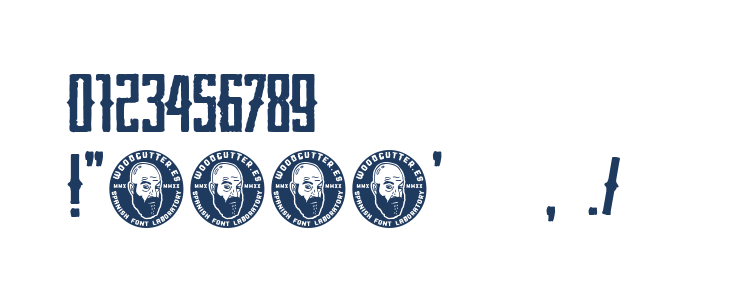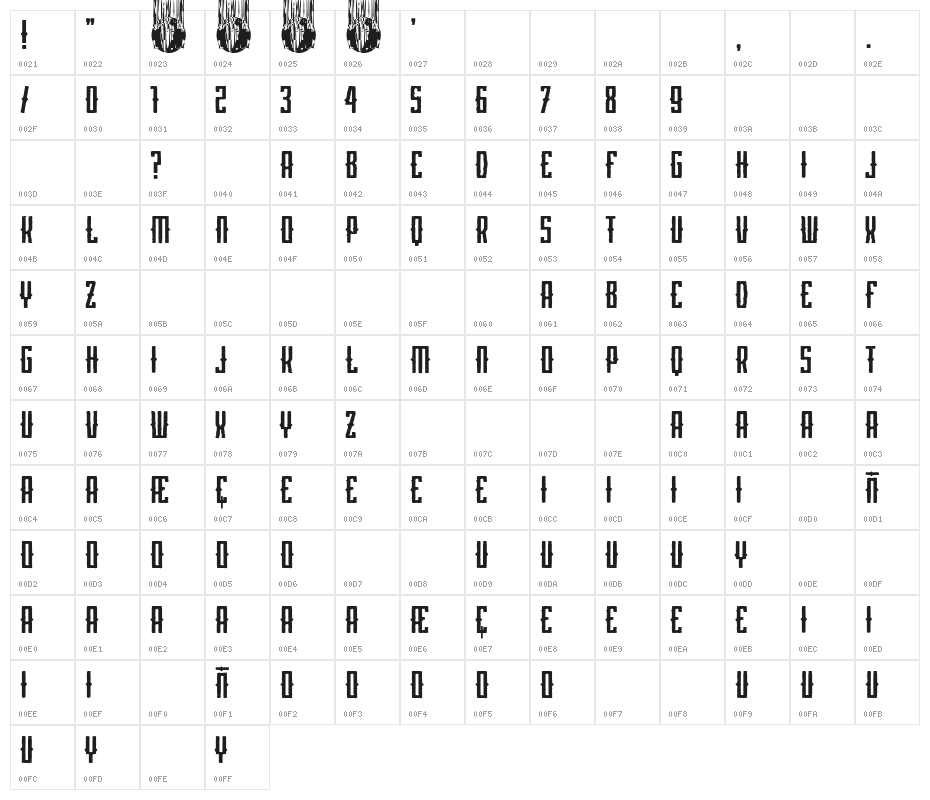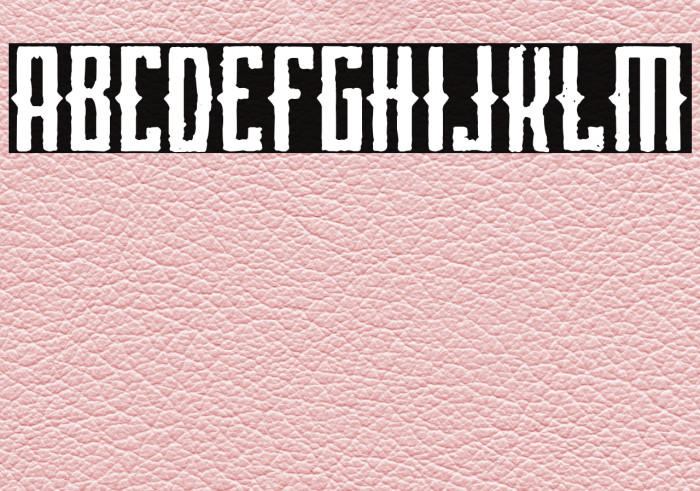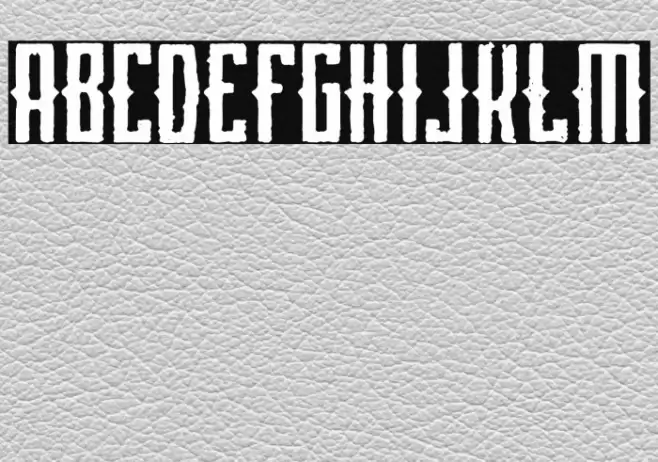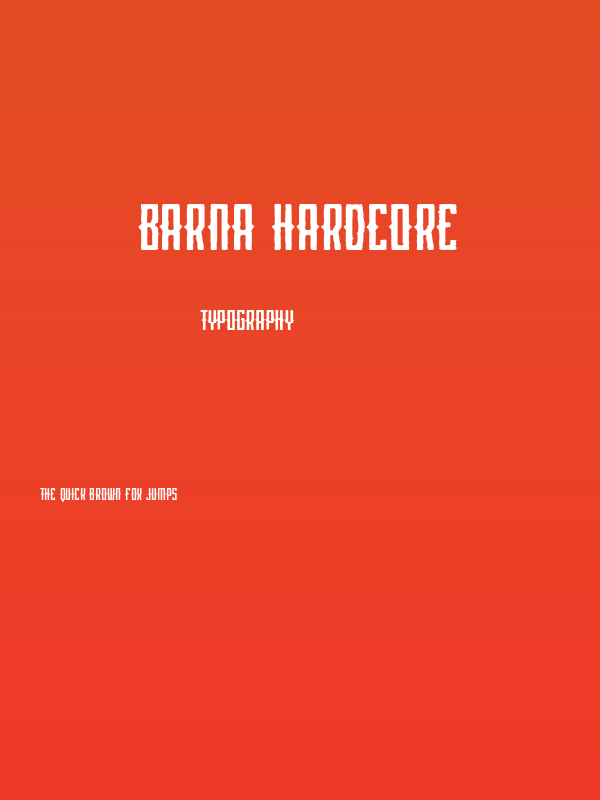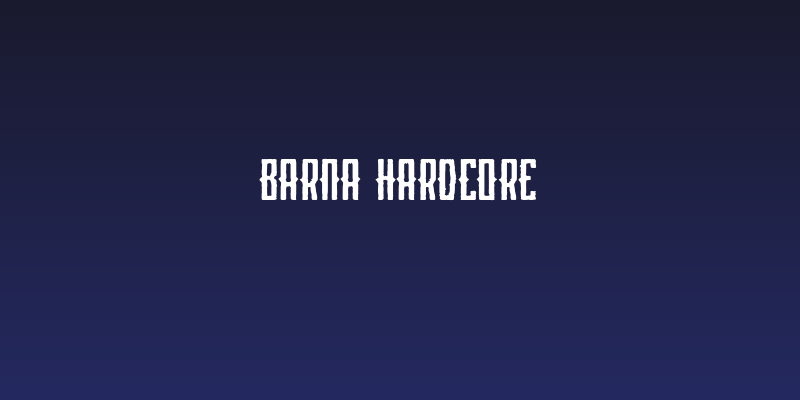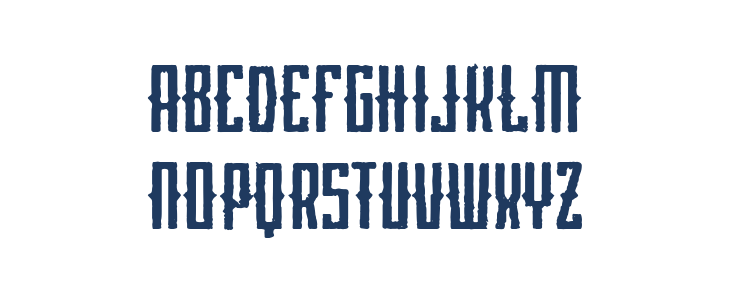
Barna Hardcore Font
Barna Hardcore Description
This font features a rugged, distressed style with a bold and impactful presence. The characters are designed with a rough, textured appearance, giving them a hardcore and edgy look. The uppercase and lowercase letters maintain a consistent height, while the numbers and special characters follow the same distressed theme. The font's unique style is reminiscent of vintage or industrial design, making it suitable for projects that require a strong, bold statement. Its decorative elements and rough edges add to its distinctive character, making it stand out in any design.
| Overall Style | Vintage, Industrial |
| Proposed Projects | Ideal for music album covers, posters, logos, and branding that require a strong, bold statement. |